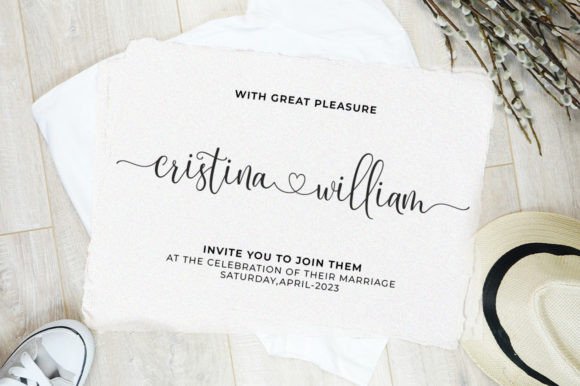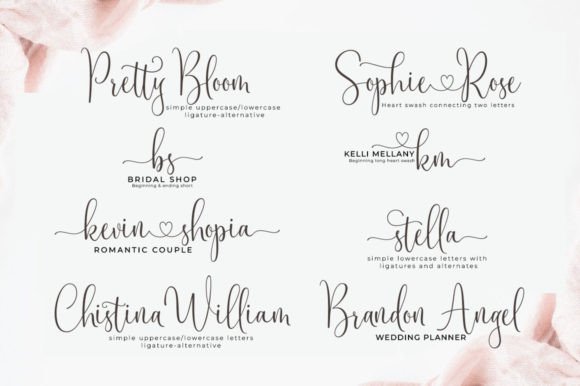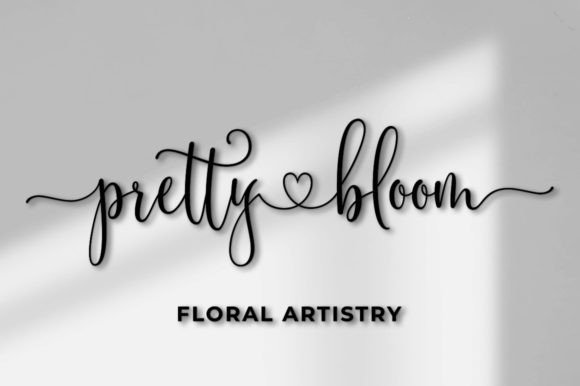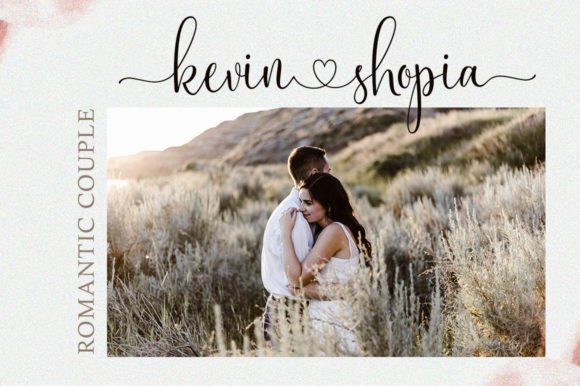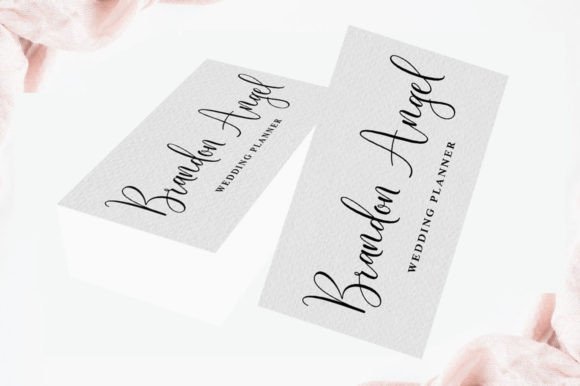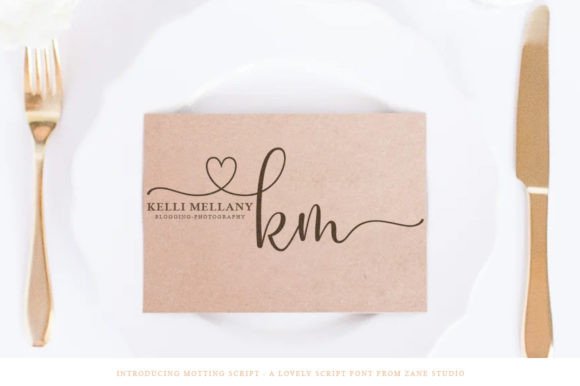
Introduction to Motting Font
Motting font exudes a sense of sophistication and class with its delicate curves and fluid lines.
Ideal for elevating wedding invitations, social media graphics, or branding materials to a new level of elegance This font is PUA encoded which means you can access all glyphs and swashes freely.
Key Features of Motting Font